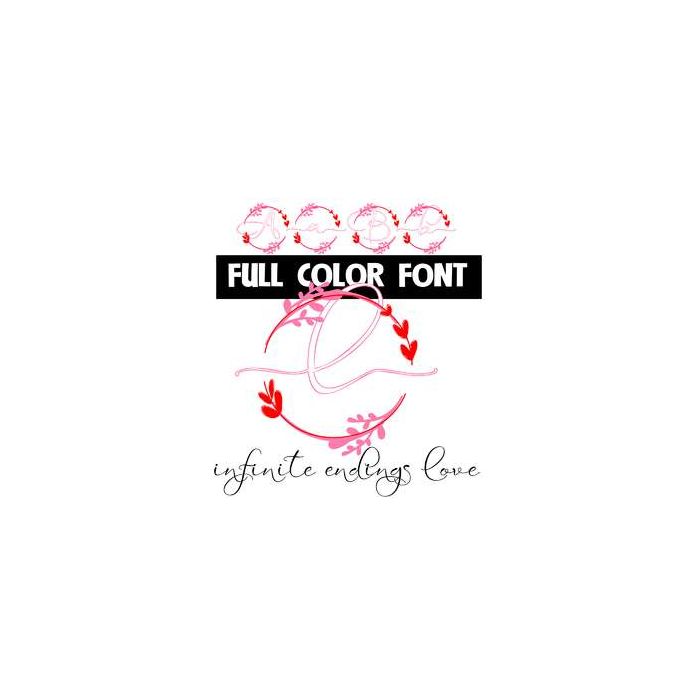
This full-color font features beautiful script monograms surrounded by a pink and red laurelesque frame. This font works best for titles, displays, posters and more. Please note color fonts will show as black in non compatible programs. This font type is compatible with Silhouette Studio.